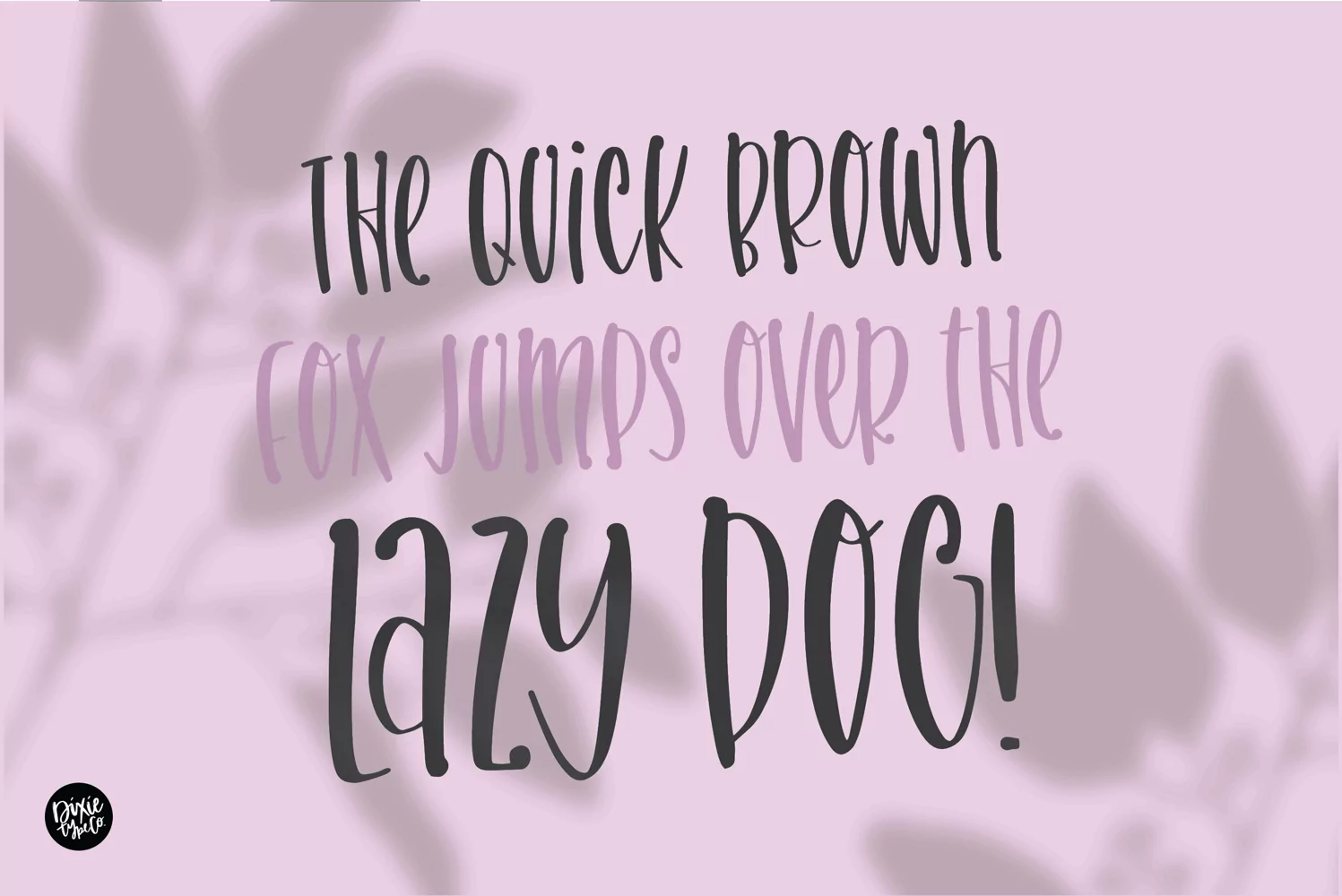
{ A typographic font hand lettered with love by Dixie Type Co. }
Cranberry is bold brushed lettered font. This works great as both display or filler text. Use it for home decor, party invitations, logos, etc.! This is the perfect sans font to have on hand.
Font includes: Upper and lowercase glyphs, numbers, and basic punctuation. Also includes 8 ligatures.